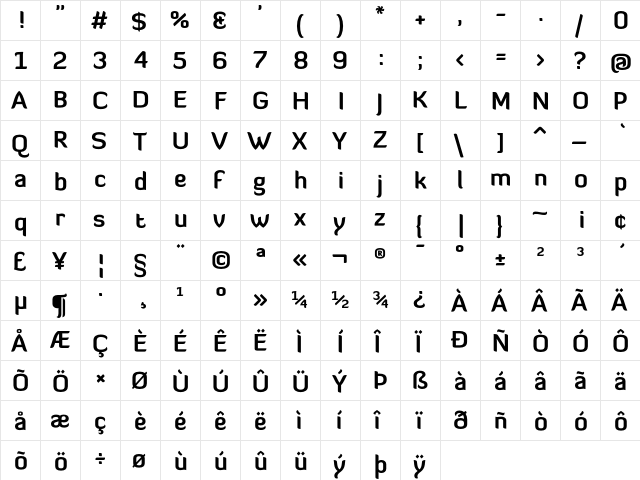
Diavlo Bold
| Foundry | Jos Buivenga |
| Designer | Jos Buivenga |
Design Context for Diavlo Typeface
Diavlo is a composed and adaptable typeface that performs quietly and consistently across a wide range of design contexts. Its bold stroke weight gives it real presence on the page.
Pro Tip: Pair Diavlo with a font of contrasting weight or personality to build a more expressive typographic hierarchy.